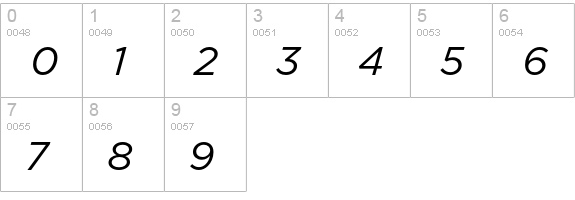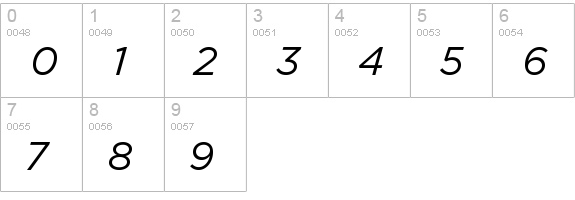
Gotham Book Italic is a comfortable, highly readable, italic variant in the Gotham typeface family \xE2\x80\x94 well suited to long-form body text, articles, and editorial content.
Gotham Book Italic is a sleek and elegant typeface that exudes sophistication and modernity. With its stylish slanted design, it adds a touch of flair to any text or design project. The italicized form of the classic Gotham Book font brings a sense of emphasis and emphasis to your words, making them stand out with a subtle yet impactful touch. What sets Gotham Book Italic apart is not just its stunning aesthetic appeal, but also its accessibility. This font is freely available to download at FontsMarket.com, making it a versatile and practical choice for designers, creatives, and anyone looking to elevate their projects with a touch of class. Whether you're working on a branding project, editorial layout, or website design, Gotham Book Italic is sure to make a statement with its timeless style and effortless sophistication. Download it today and add a touch of elegance to your creations!